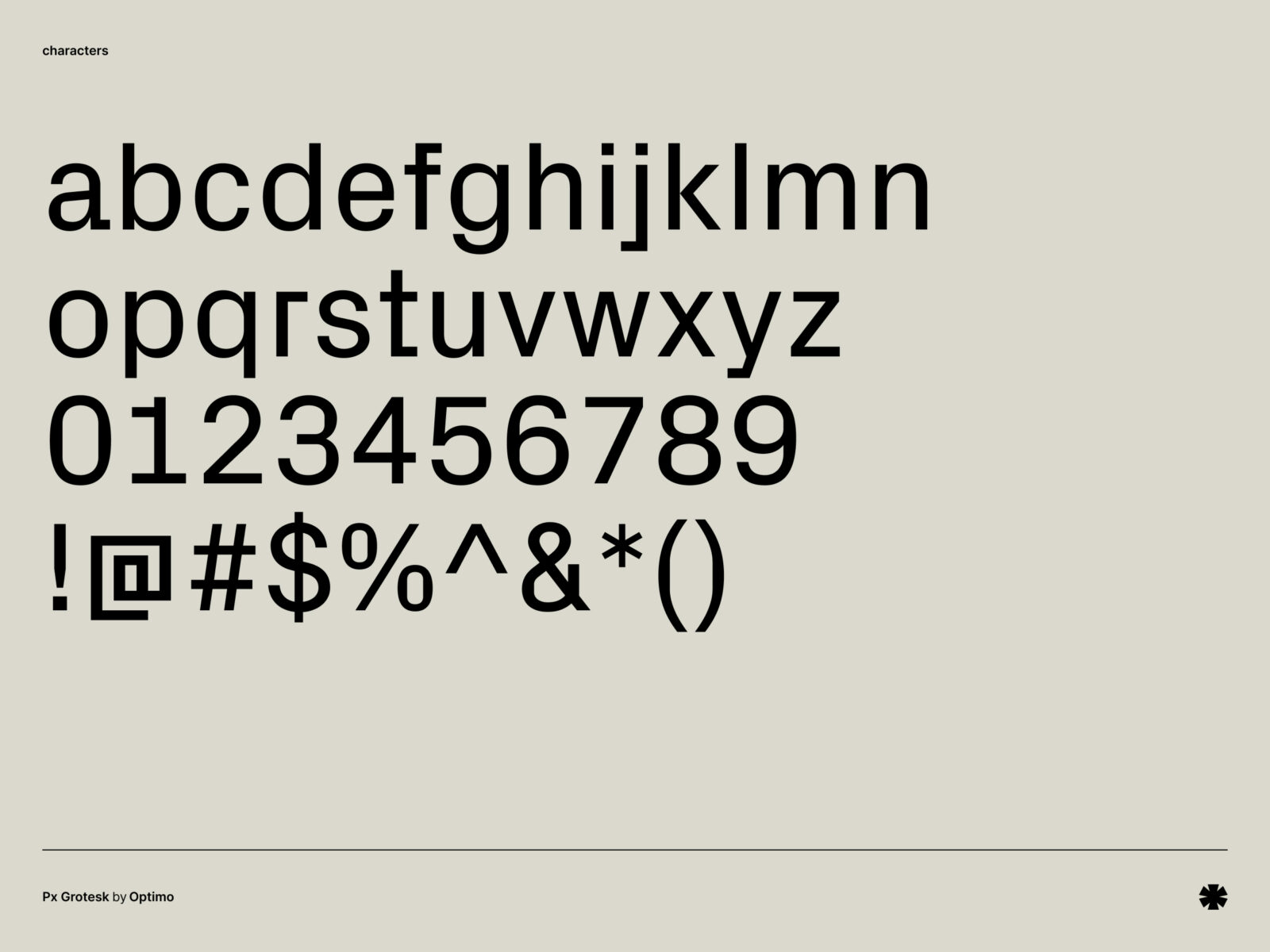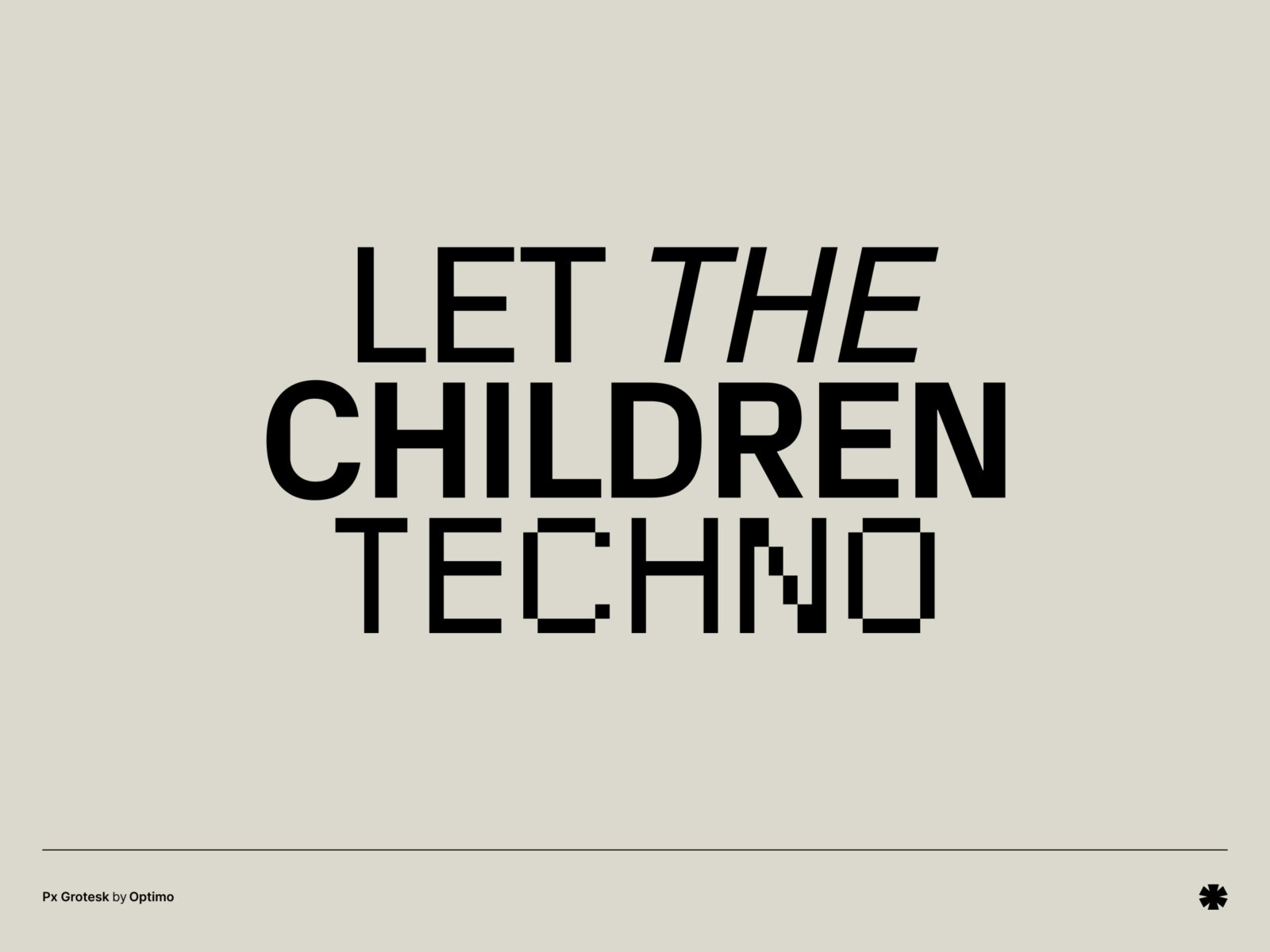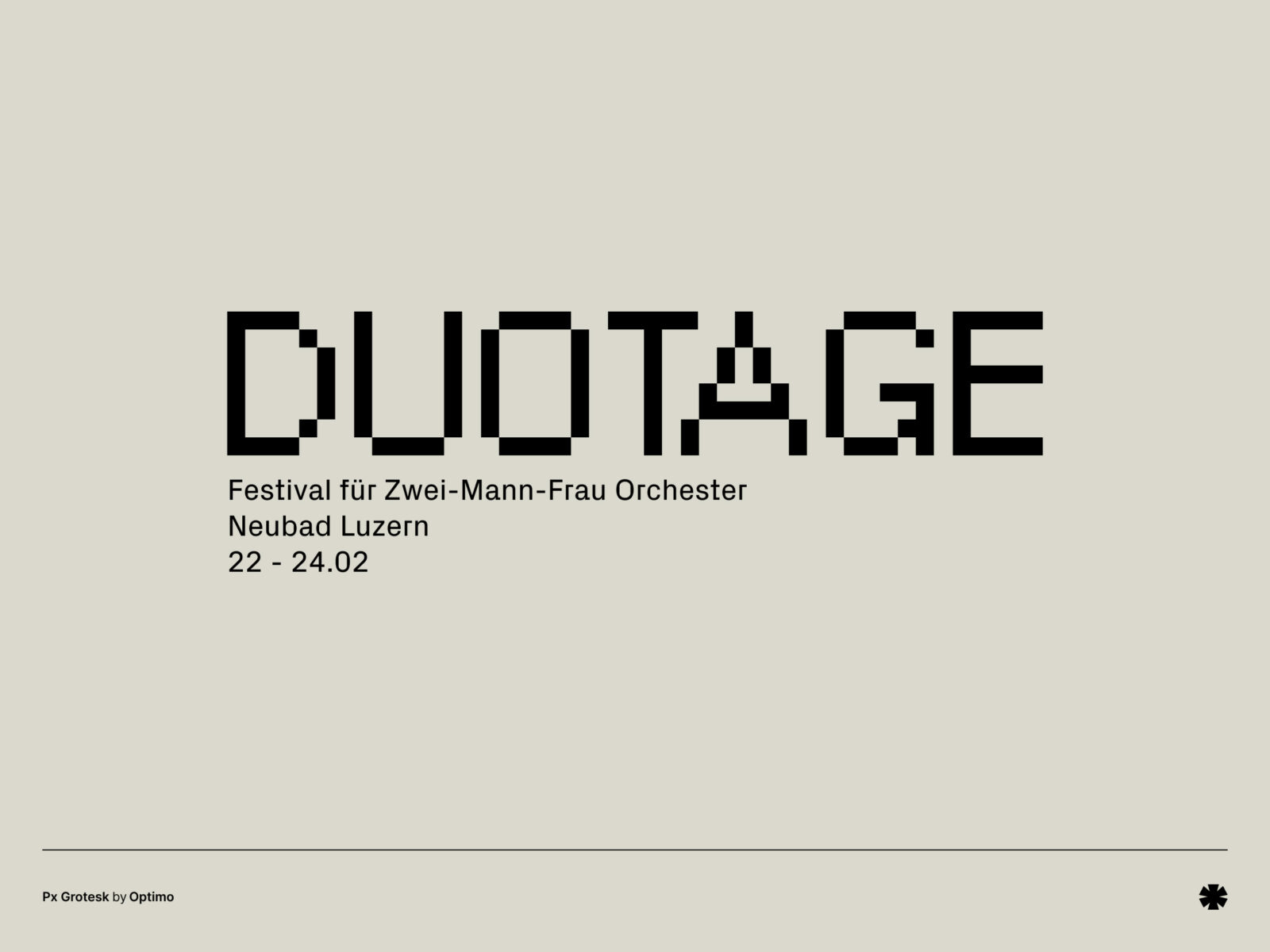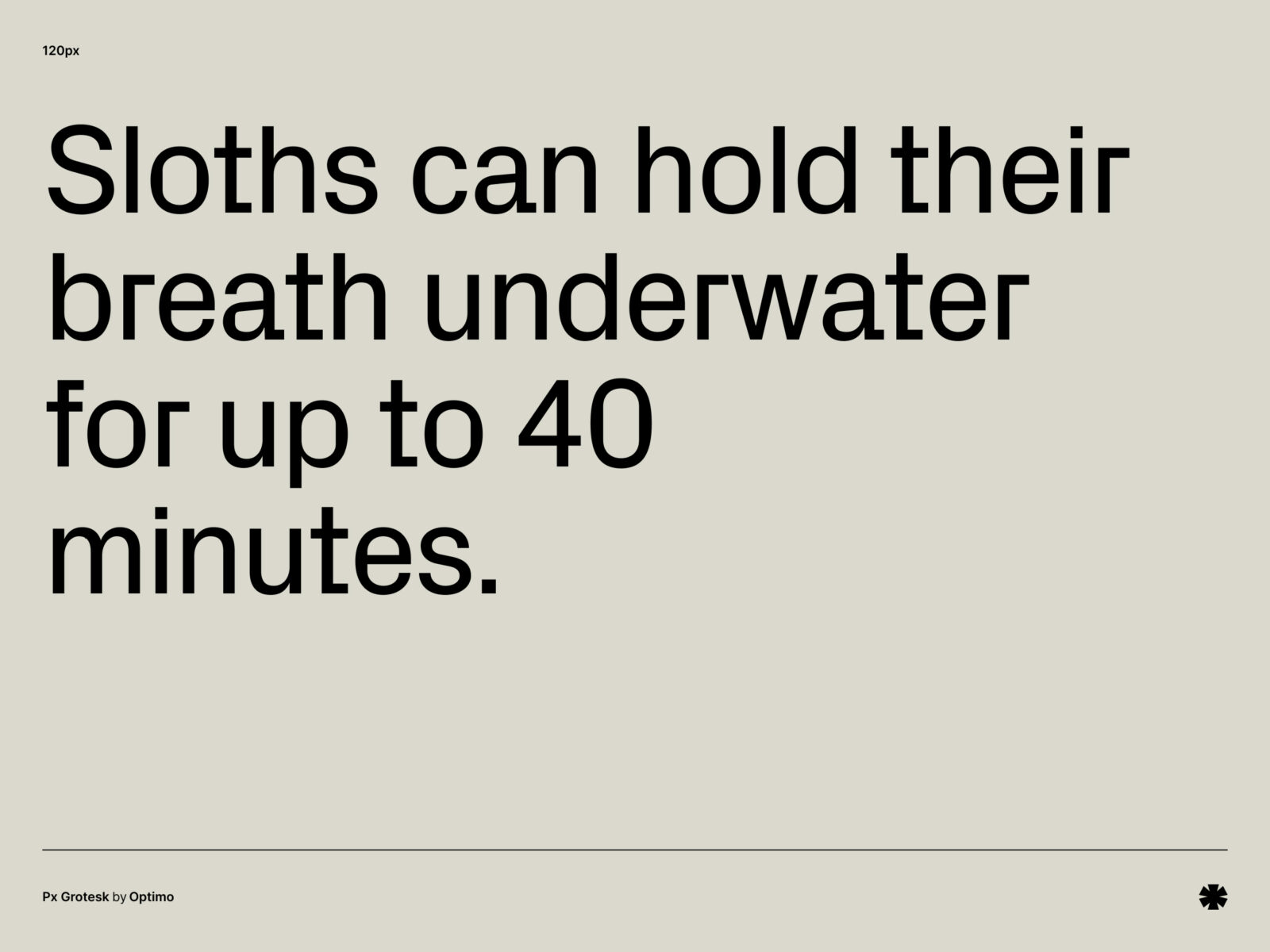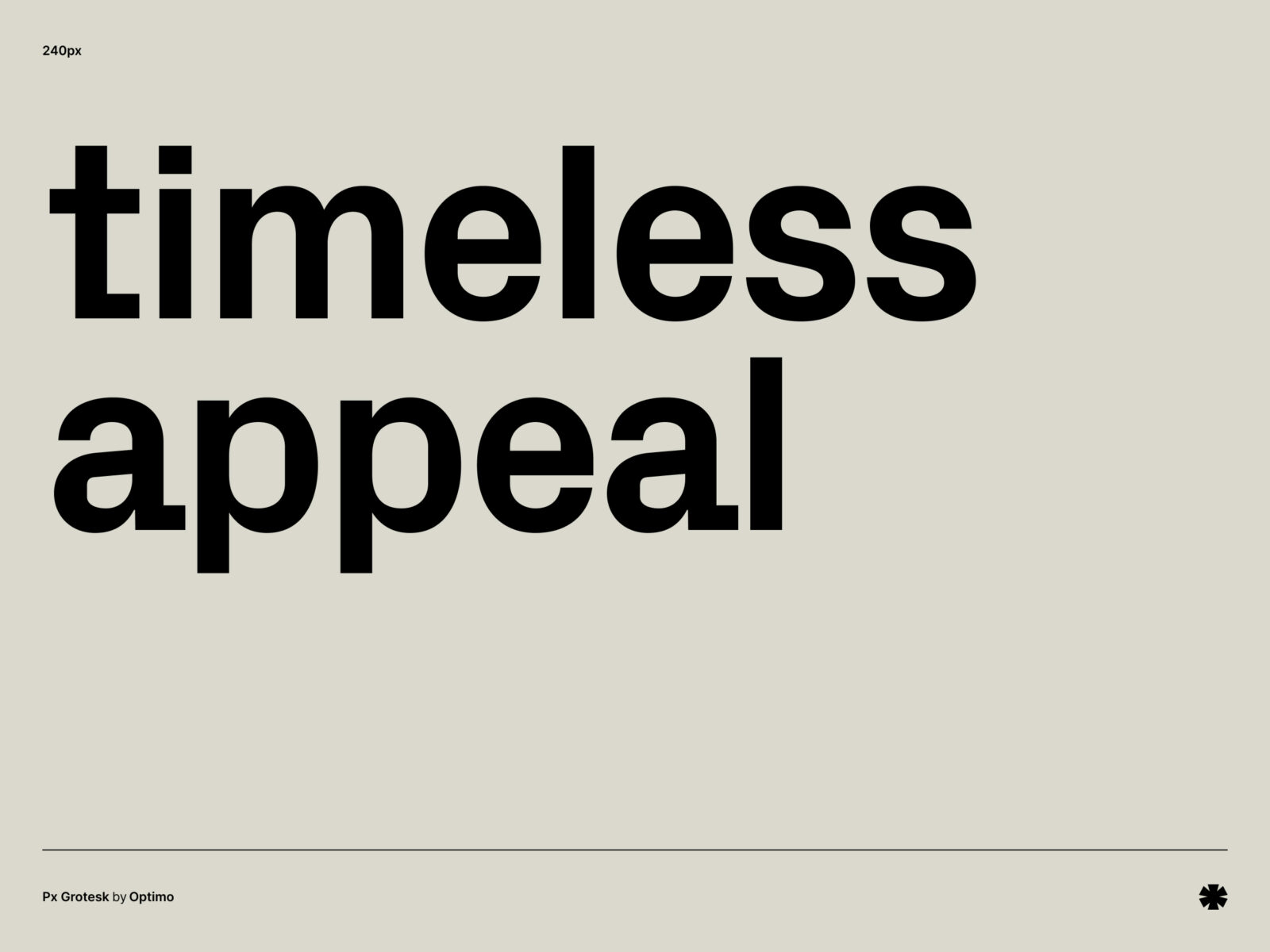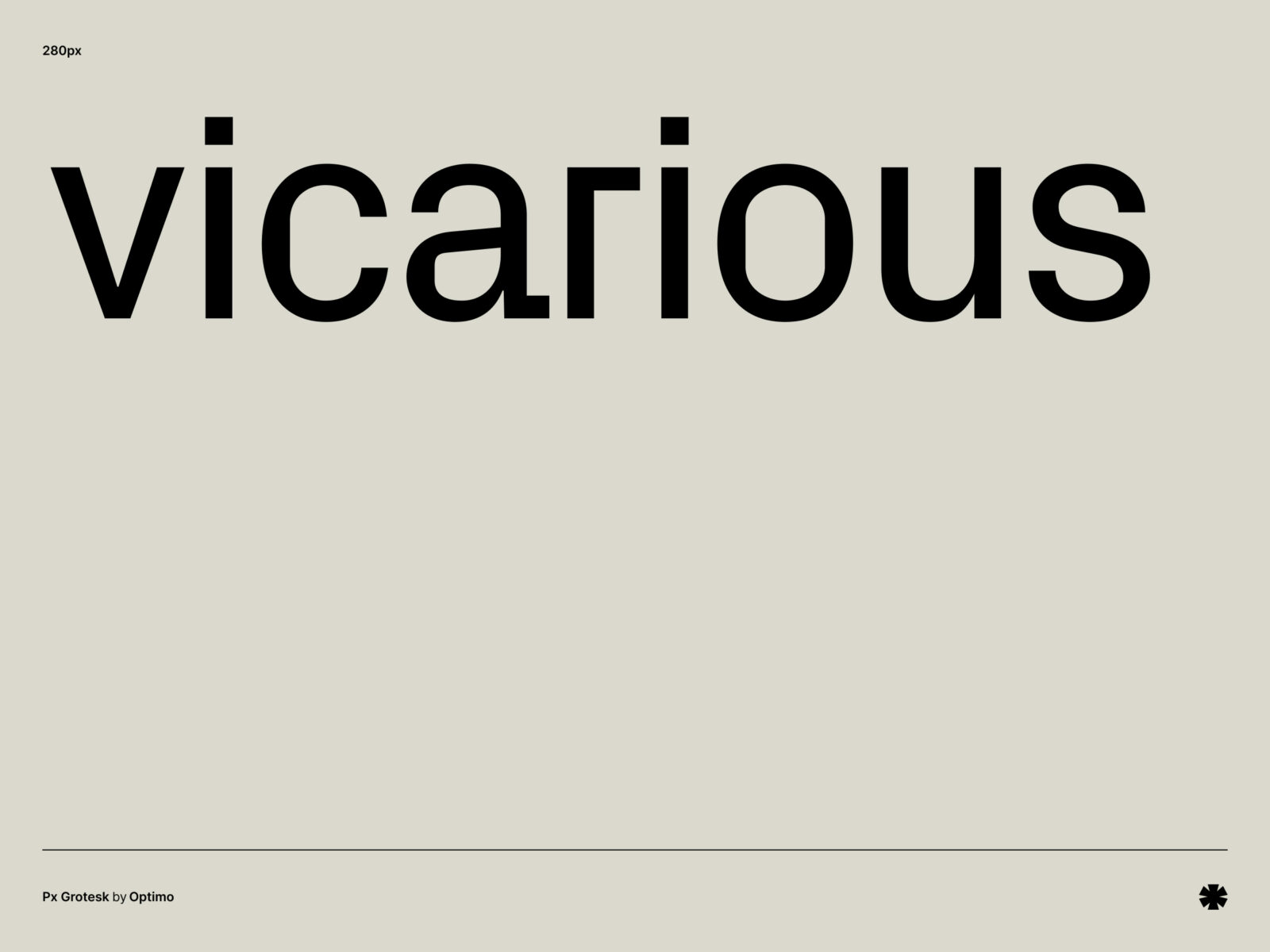
Px Grotesk is a contemporary sans-serif typeface characterized by its clean lines and balanced proportions. It features a unique pixelated weight that adds a modern, digital twist to its clean lines and balanced proportions.